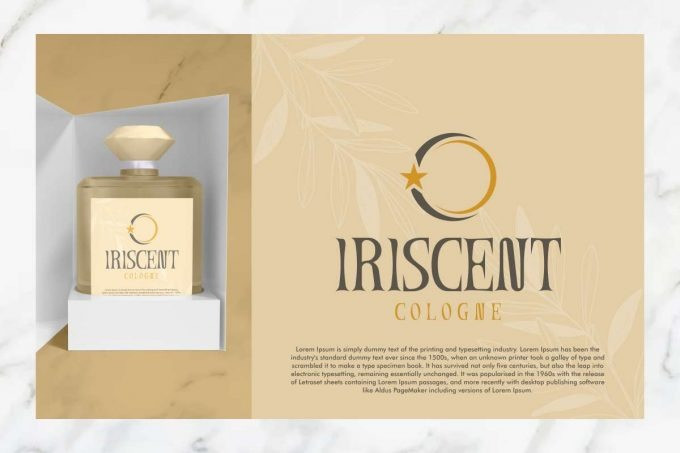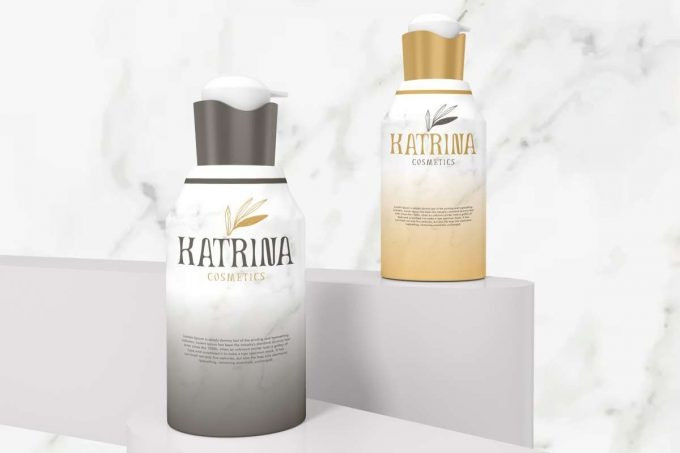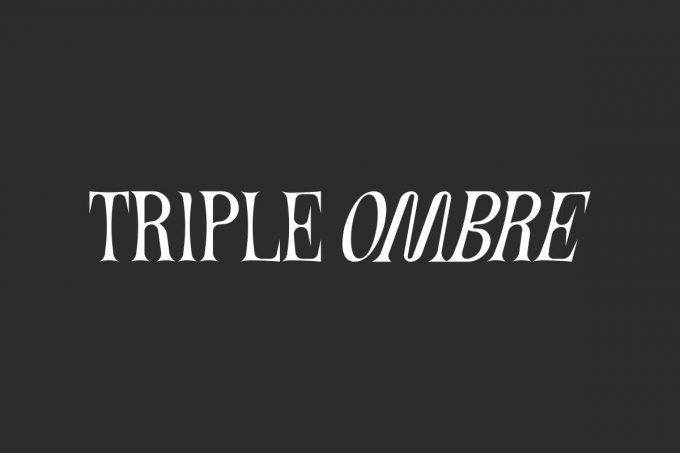
Triple Ombre Font
Triple Ombre Display Font is a display font with unique shapes. The font comes with two style options: Regular and Italic. The font is suitable for many industries such as, author, boutique, cologne, cosmetic, craft, event tenant, fashion, homeware, jewelry, publishing, printing, restaurant, salon, writer, and more!
Triple Ombre Font includes ALLCAPS for Uppercase and Lowercase Basic Characters, Numerals and Punctuation. This font would be perfect for designs that require a luxurious and unique touch, including : billboard, cover, frame art, header, jewelry box, labels, magazine catalog, packaging design, poster, screen printing, stationery, website, etc.